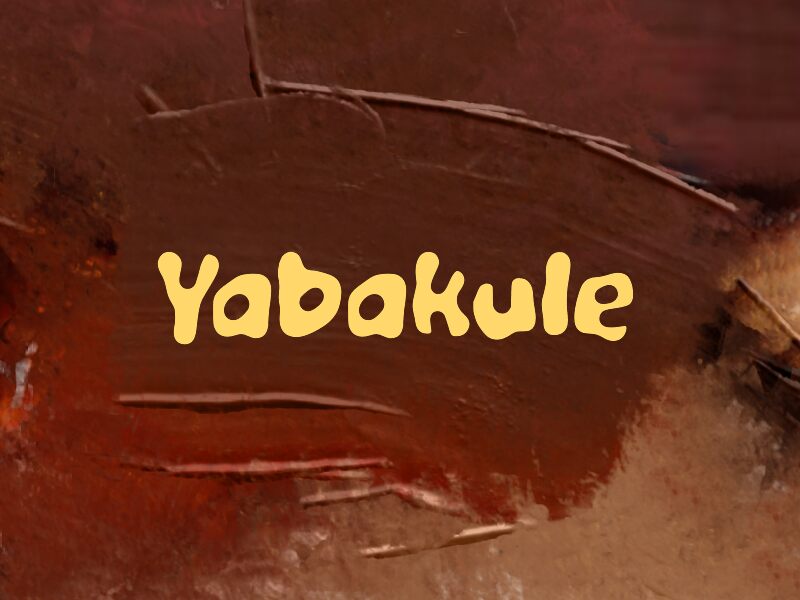
Yabakule
Yabakule font by wepfont.com is a free cartoon display typeface that looks like it’s been drawn with a thick, inky marker and left to wobble on the page. Its soft, blobby shapes and uneven rhythm feel bouncy and hand‑made, giving every word a goofy, approachable energy. The letters press up against each other with a chunky, almost sticker-like weight, so even short titles feel bold and full of personality.
Using Yabakule, you can instantly turn kids’ posters, party invitations, playful logos, game titles, thumbnails, and character-driven packaging into something loud and lovable. This free font shines at large sizes where its quirky curves can breathe; pair it with a clean geometric sans for small supporting text to keep layouts clear while Yabakule does the fun, expressive work.